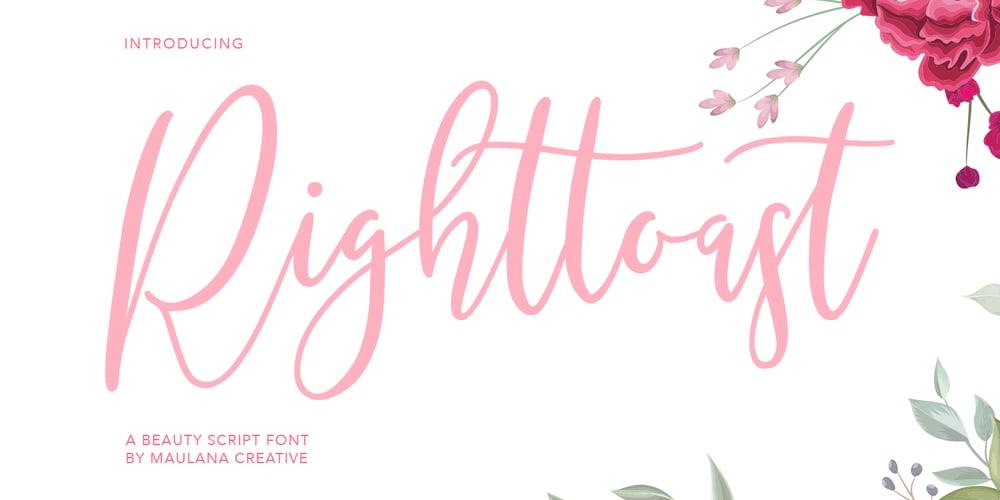
Righttoast Font Family was designed by Gilang Maulana and published by Maulana Creative. Righttoast contains 1 styles and family package options. Righttoast is a modern script font. It’s a clean store with high contrast line. It readable in short text. Righttoast includes opentype features Ligatures. It support multilingual more than 100+ language. This font is good for logo design, Movie Titles, Books Titles and any awesome project you create. Make a stunning work with Righttoast script font. Cheers, MaulanaCreative